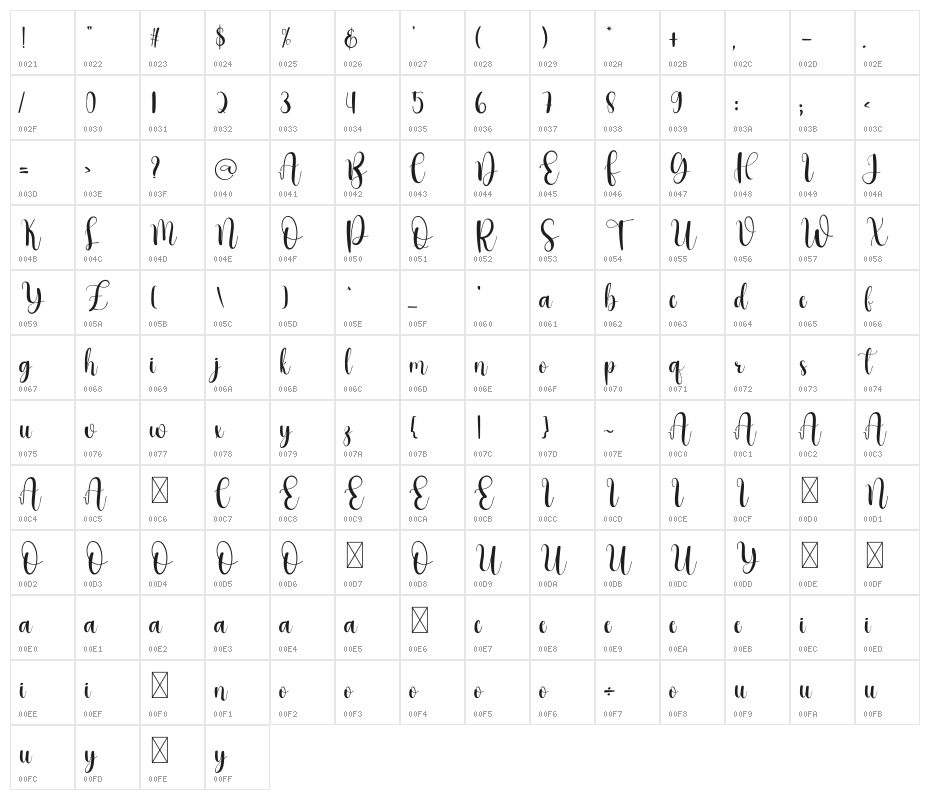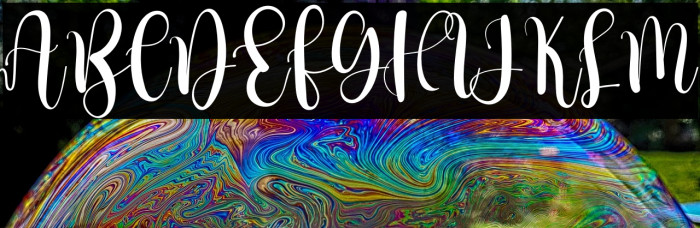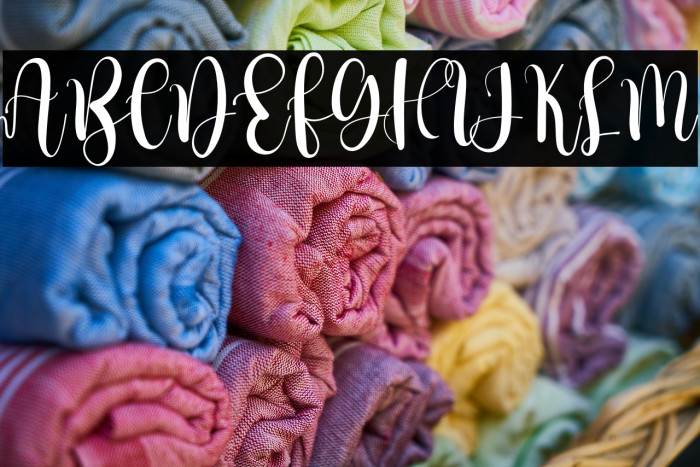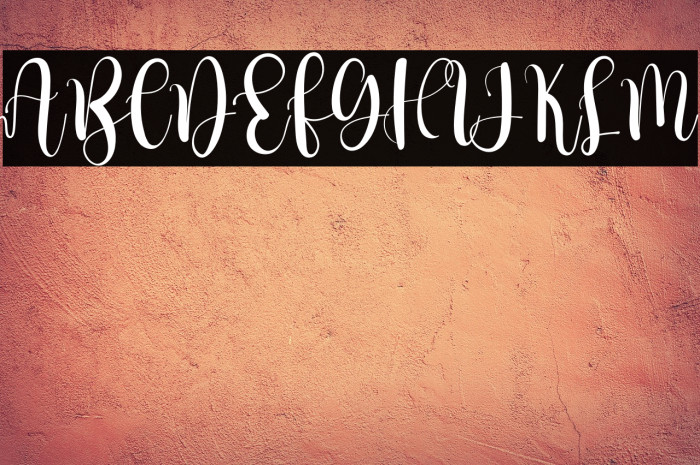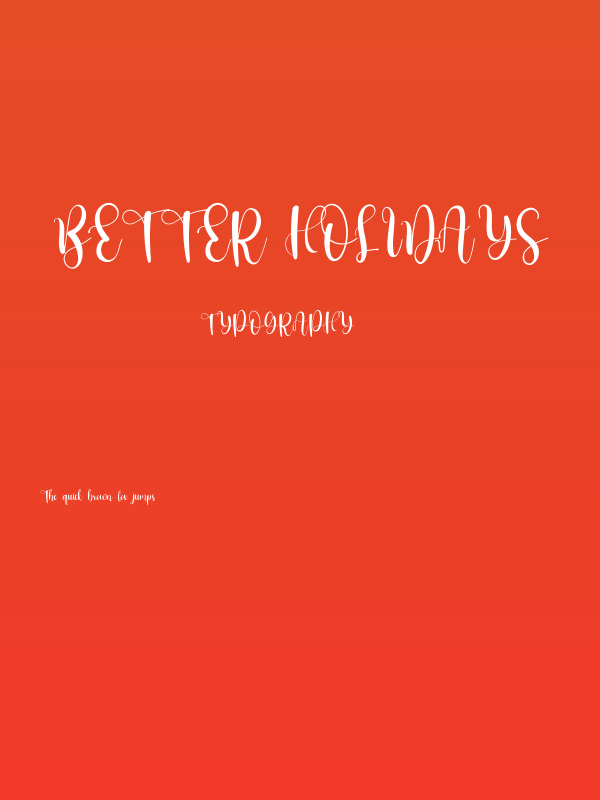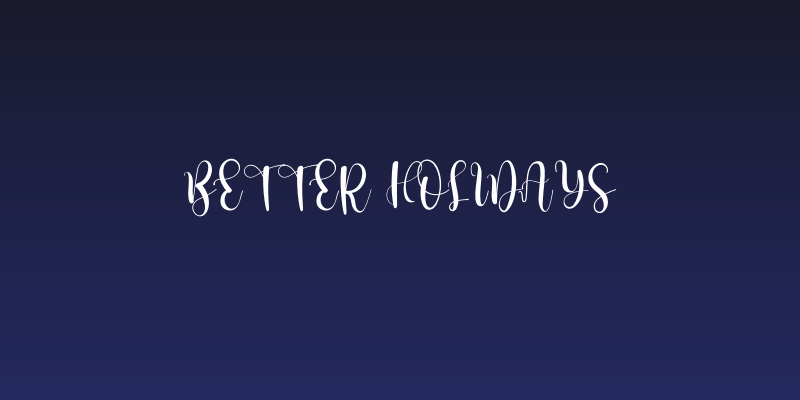
Better Holidays Font
Better Holidays Description
A playful, decorative script font with exaggerated loops and flourishes, featuring a handwritten style with varying stroke thickness and high contrast. The characters are tall with a pronounced ascender and descender ratio, giving the font an elegant and whimsical appearance.
| Overall Style | Decorative, Whimsical, Handwritten |
| Use Case | Logos, Headlines, Invitations, Greeting cards |
| Proposed Projects | Greeting cards, invitations, holiday-themed graphics, branding for creative businesses, social media posts. |